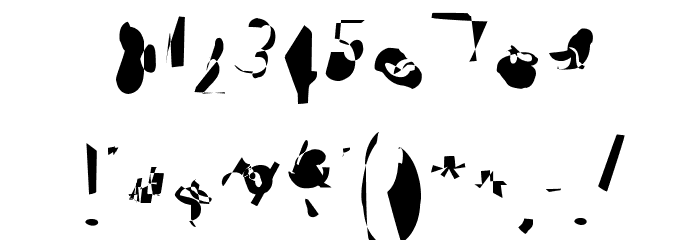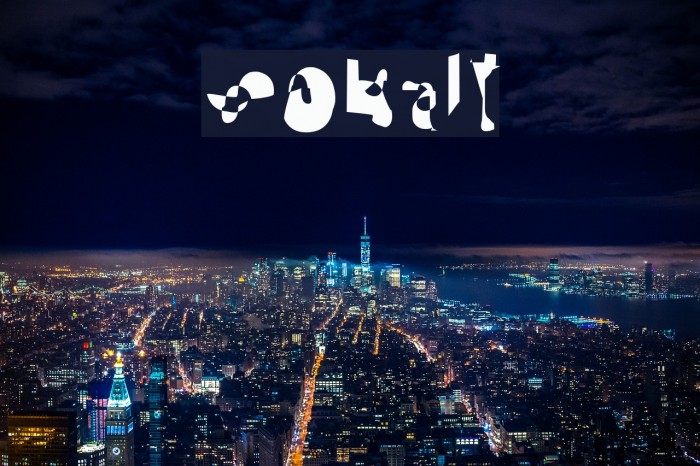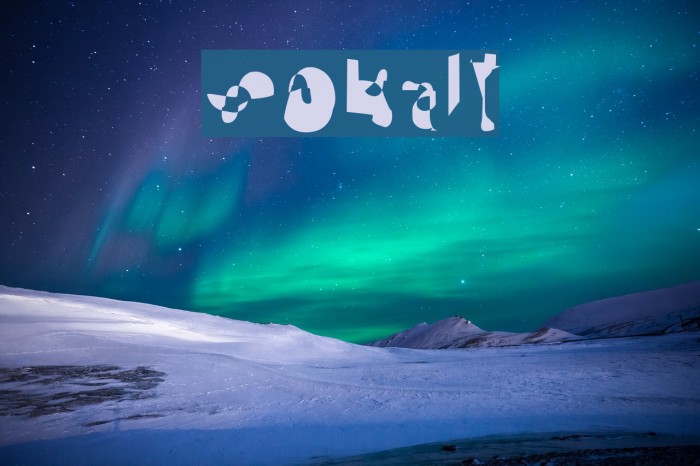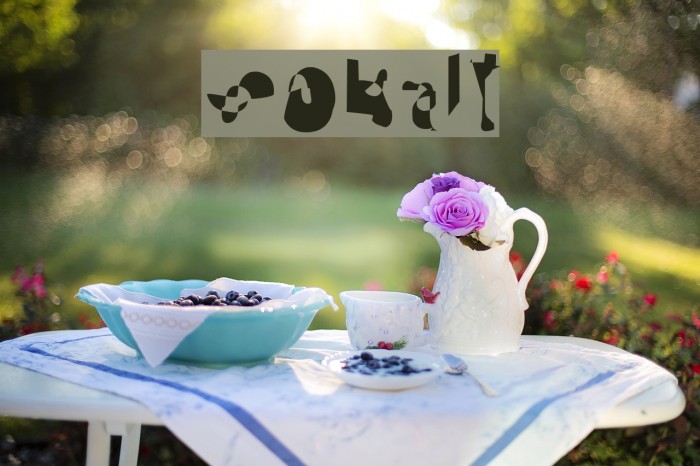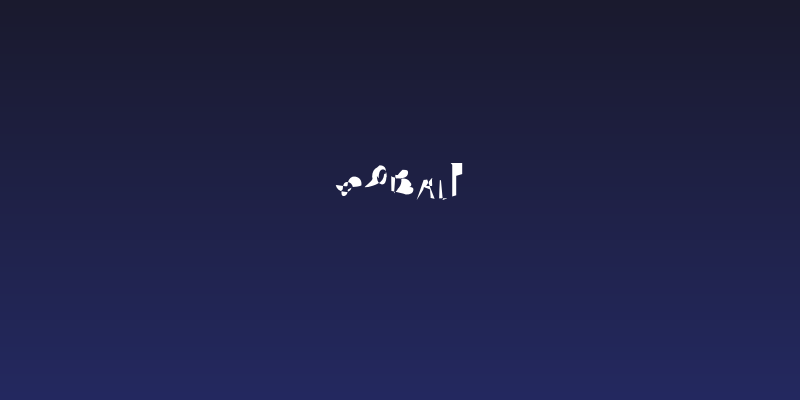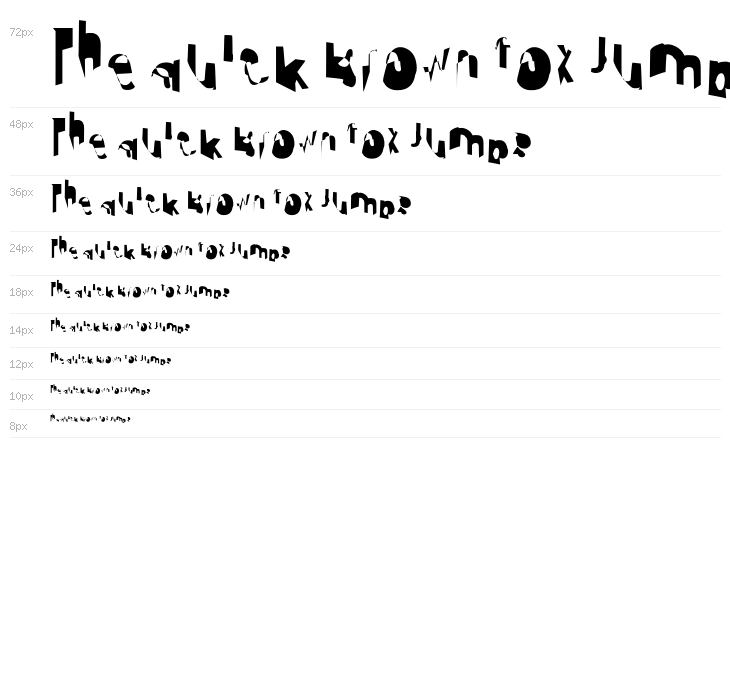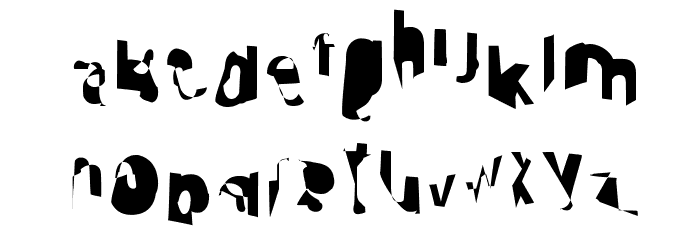
Cobalt Font
Cobalt Description
This font features a highly abstract and fragmented design, with each character appearing as if it has been shattered or deconstructed. The letters are composed of irregular shapes and negative spaces, creating a chaotic yet intriguing visual effect. The style is bold and unconventional, making it stand out with its unique artistic flair. This font challenges traditional readability, focusing more on artistic expression and visual impact. The characters vary in thickness and form, contributing to an overall dynamic and unpredictable appearance.
| Overall Style | Modern, Abstract |
| Use Case | Logos, Artistic displays, Experimental design |
| Proposed Projects | Ideal for avant-garde art projects, experimental design work, or any creative endeavor that seeks to push the boundaries of traditional typography. |